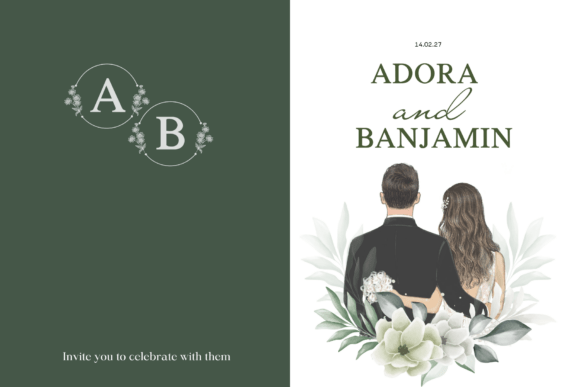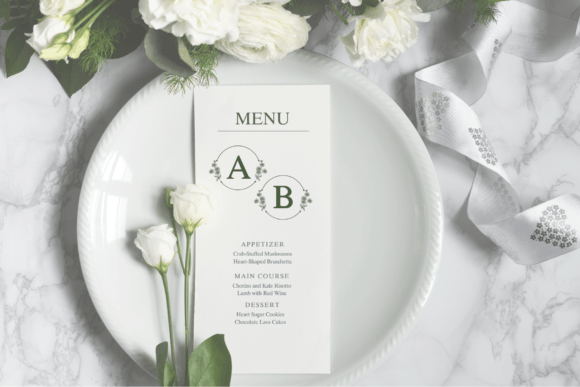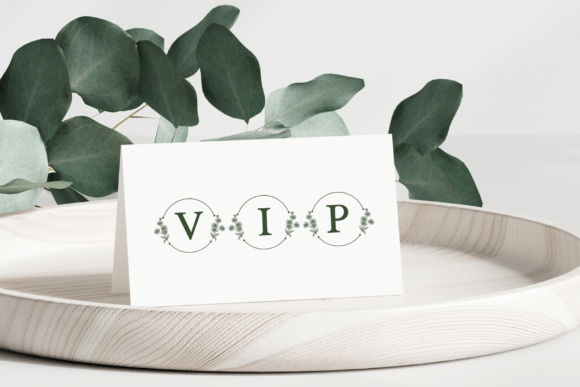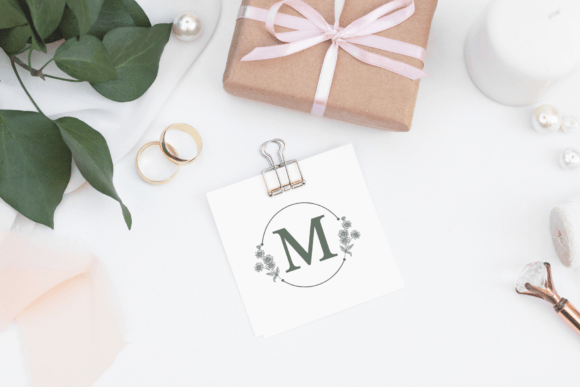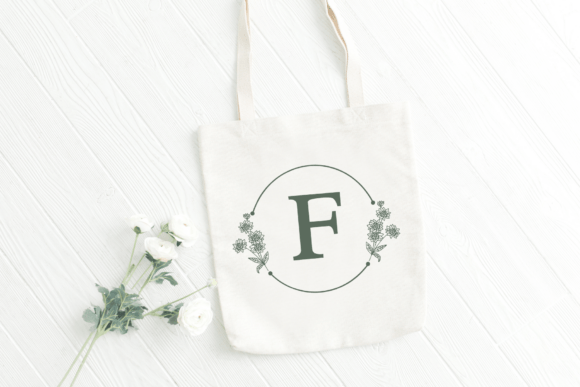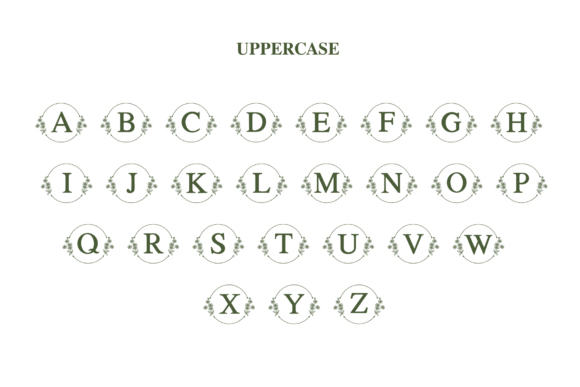
Introducing the Floral Circle Monogram Font: Elevate Your Designs with Elegance
Are you looking for a font that adds a touch of sophistication and charm to your designs? Look no further than the Floral Circle Monogram Font. This elegant font is specifically designed for special occasions, featuring decorative letters inside a beautiful flower round frame. In this article, we’ll dive into the world of Floral Circle Monogram Font, exploring its features, uses, and benefits for designers and crafters.
What is Floral Circle Monogram Font?
Floral Circle Monogram Font is a unique and stylish font designed to make your designs stand out. The font features decorative letters, carefully crafted to fit inside a beautiful flower round frame. This distinctive design makes it perfect for special occasions such as weddings, anniversaries, and other celebrations. The font’s elegant and sophisticated style adds a touch of charm to any design, making it ideal for invitations, wedding cards, and other stationery.
Key Features of Floral Circle Monogram Font
- Elegant Design: The font features a beautiful flower round frame, adding a touch of sophistication to any design.
- Decorative Letters: The font includes decorative letters, carefully crafted to fit inside the flower round frame.
- Perfect for Special Occasions: The font is specifically designed for special occasions such as weddings, anniversaries, and other celebrations.
- Versatile: The font can be used for a variety of design projects, including invitations, wedding cards, and other stationery.
Uses of Floral Circle Monogram Font
Floral Circle Monogram Font is a versatile font that can be used for a variety of design projects. Here are some of the most popular uses of this font:
- Wedding Invitations: The font is perfect for wedding invitations, adding a touch of elegance and sophistication to your designs.
- Wedding Cards: The font can be used to create beautiful wedding cards, perfect for congratulating the happy couple.
- Anniversary Cards: The font is also ideal for anniversary cards, adding a touch of romance and charm to your designs.
- Stationery: The font can be used to create a variety of stationery, including letterheads, envelopes, and more.
Benefits of Using Floral Circle Monogram Font
There are many benefits to using Floral Circle Monogram Font in your designs. Here are some of the most significant advantages:
- Unique Design: The font features a unique and distinctive design, making your designs stand out from the crowd.
- Elegant and Sophisticated: The font adds a touch of elegance and sophistication to any design, making it perfect for special occasions.
- Versatile: The font can be used for a variety of design projects, making it a great addition to your font library.
Tips for Using Floral Circle Monogram Font
Here are some tips for using Floral Circle Monogram Font in your designs:
- Use it for Special Occasions: The font is specifically designed for special occasions, so use it for wedding invitations, wedding cards, and other celebration designs.
- Experiment with Colors: The font looks great in a variety of colors, so experiment with different colors to find the one that works best for your design.
- Pair it with Other Fonts: The font can be paired with other fonts to create a unique and stylish design.
Floral Circle Monogram Font is a beautiful and elegant font that adds a touch of sophistication and charm to any design. With its unique design, decorative letters, and versatile uses, this font is perfect for designers and crafters looking to create stunning designs for special occasions. Whether you’re creating wedding invitations, wedding cards, or other stationery, Floral Circle Monogram Font is a great choice. So why wait? Download Floral Circle Monogram Font today and start creating your own beautiful designs!